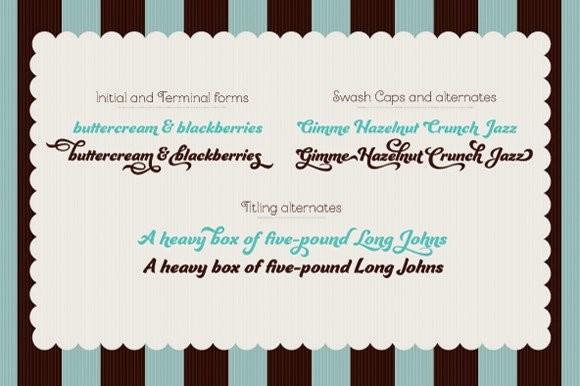
Ganache Font Description
Ganache is a packaging script font, confidently walking the critical fine line between plain-Jane legibility—so essential to sales—and the overly complex brand personality, instead giving us a clear, cheery, eye-catching face with the appeal and style to stand out on any shelf or page.
We’ve come to expect delicious typefaces from Laura Worthington, but this one takes the cake. Like its chocolaty, creamy, yet sturdy namesake, Worthington’s Ganache is thick, rich, strong, but not weighty. It’s stylish, but not over-the-top. It calls attention to a product or company, enhancing but not dominating.
Round, sensual, and almost bouncy, it evokes marshmallows, butterscotch, gumdrops, mouthfuls of luscious frosted donuts, and deluxe, handmade little cookies lavished with thick, smooth filling. But Ganache, with its happy, warm, human touch, and its beautifully drawn spunkiness, will draw the eye to much more than food and beverages, and in your hands, will stand out in the noise of other products through its seductiveness and clarity, rather than with a loud voice.
Ganache is lovely and strong—not a true script, roman, or italic, but a distinctive hybrid. It’s smart, intricate, and fun, and deceptively simple. The type designer’s fascination with letter-fitting makes this an intriguing exercise in negative space. Note the lowercase suffix: ing. The swash of the n swings into the g’s negative space, and to a slightly lesser extent, the g slides into the negative space of the n. Sit a d and a b side by side, and these two sturdy, functional letters form a soft, sweeping curve in between—a delightful morsel.
The uppercase letters are boldly stylish, and here, some of the counters display unexpected shapes. The O’s curlique tucks in to give the counter a form with the power to anchor a logo. The lowercase c echoes this in its counter. Between some letters, the negative space is transformed into a type of swash itself. Small, subtle surprises like these are sprinkled through this carefully structured typeface, giving it the power and charm to hold up in reversed out lettering (light on dark) in which the counters take on more prominence.
Ganache surmounts the core challenge of packaging: to achieve functional goals without the loss of interest that makes a product invisible. It finds a happy balance: a heavy, substantial text that isn’t dainty or wispy, one that says, “I’m over here!” with a dollop of sweetness and an enticing little wave.
Ganache is accompanied by 185 swashes and alternates and 10 ornaments. The default has its distinctive “swashyness,” stylized but not extreme. OpenType’s Titling feature offers a simpler version, in which, for example, crossbars have a more standard roman look, and remnants of swashes are removed.